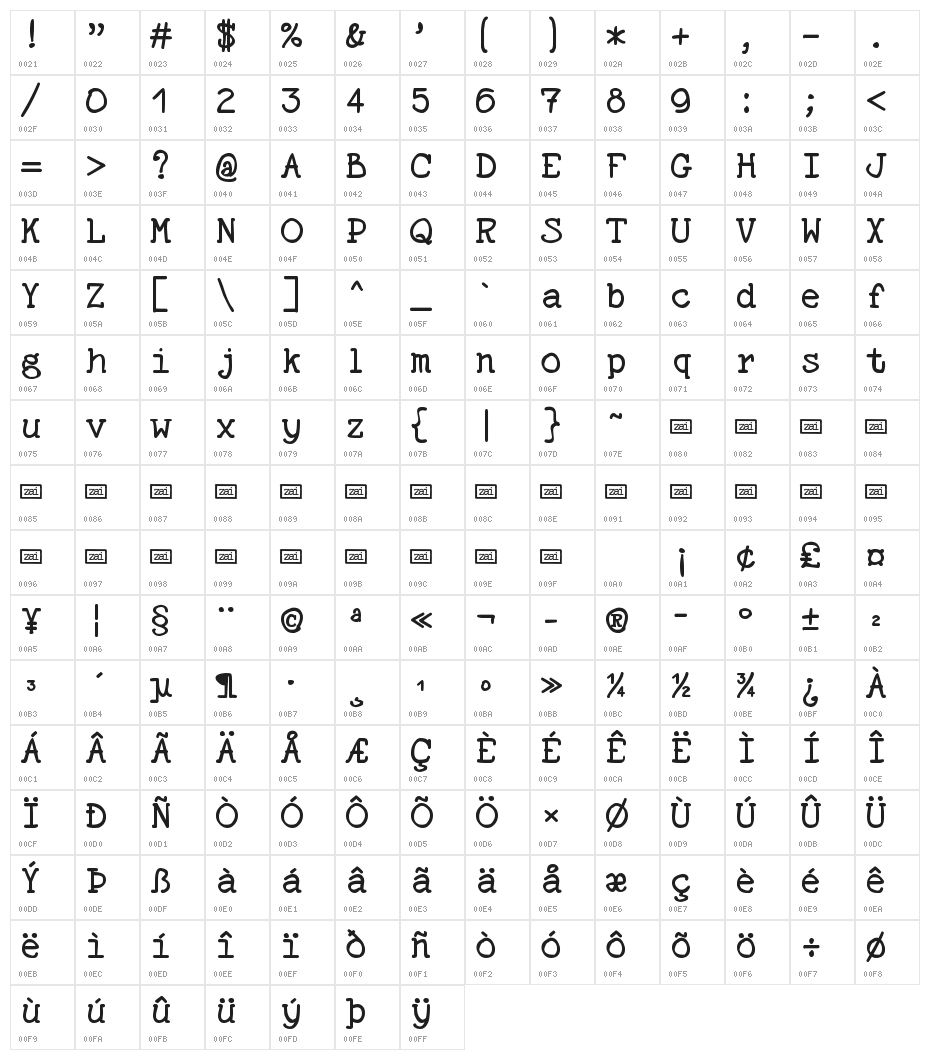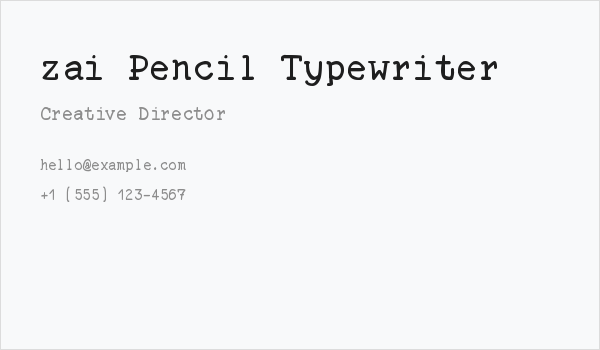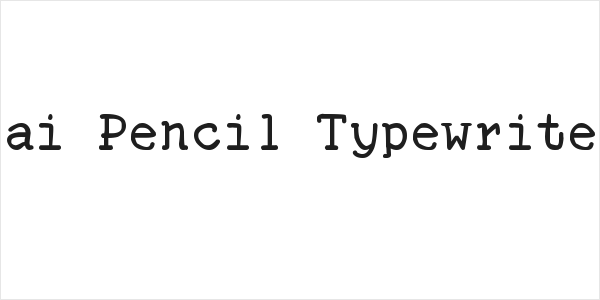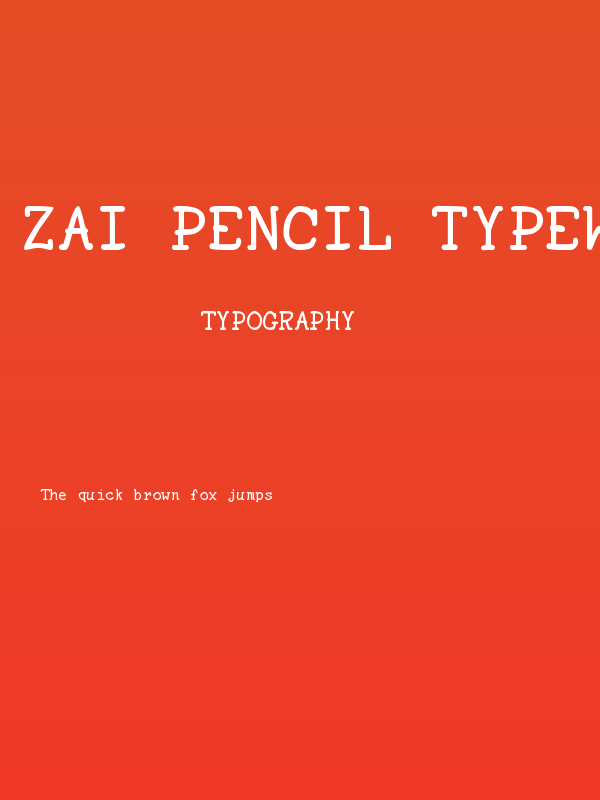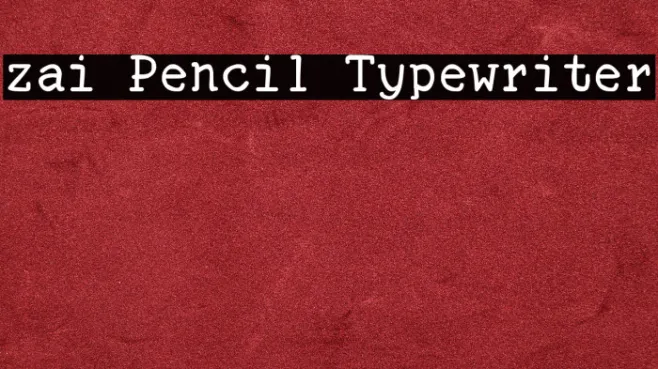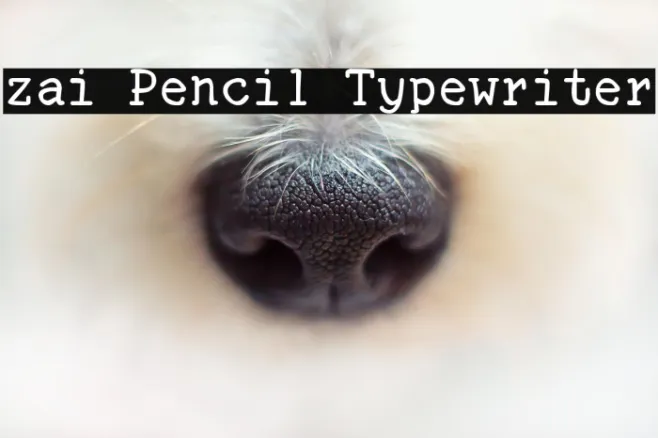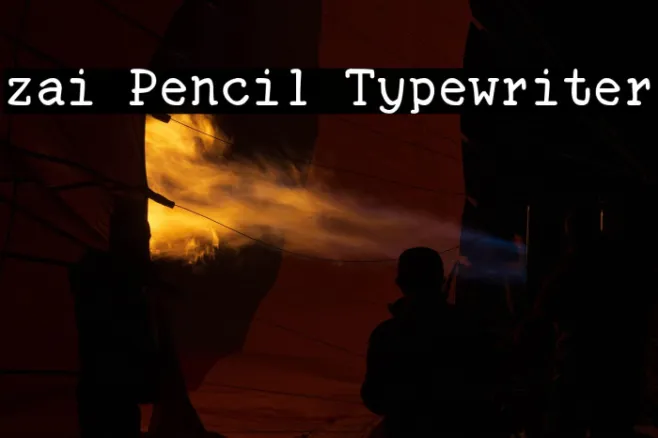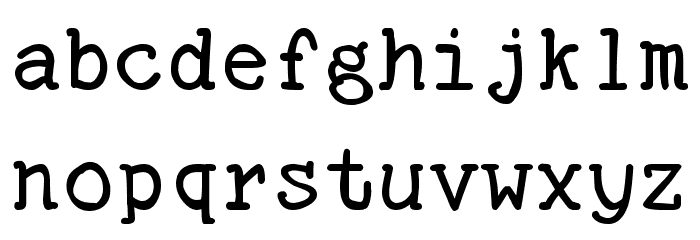
zai Pencil Typewriter Font
zai Pencil Typewriter Description
This font features a playful, handwritten style reminiscent of typewriter text with a whimsical twist. The characters have a slightly uneven baseline, adding to the casual and approachable feel. The strokes are rounded and smooth, giving the font a friendly and inviting appearance. The uppercase letters are bold and prominent, while the lowercase letters maintain a consistent flow, enhancing readability. Numbers and special characters are designed to match the overall style, ensuring a cohesive look across all text elements.
| Proposed Projects | Ideal for creative projects such as greeting cards, invitations, children's books, and casual branding. |